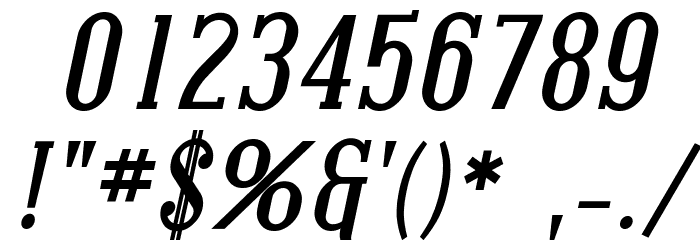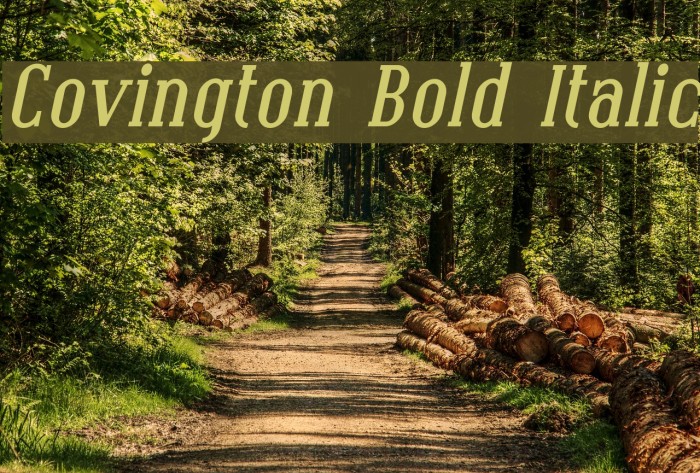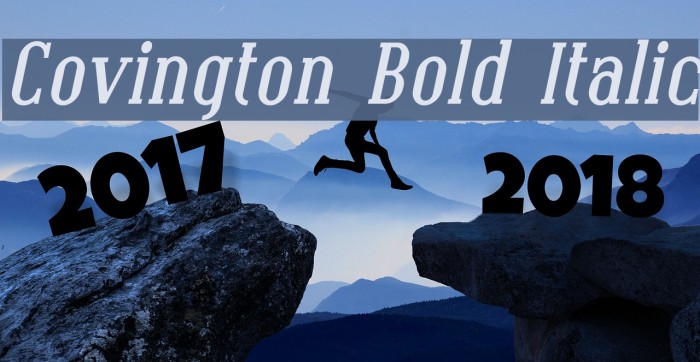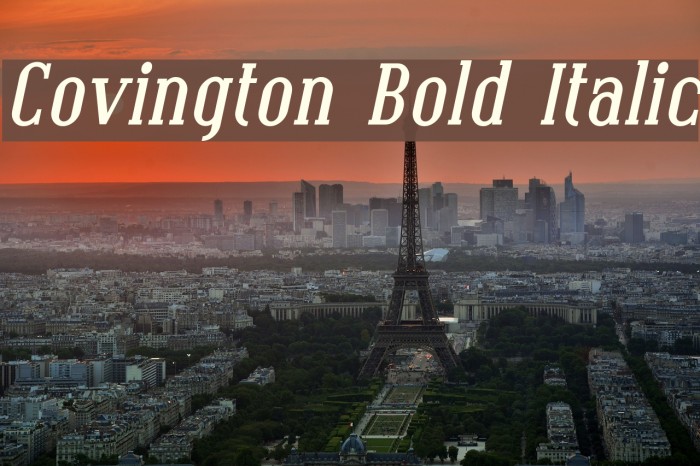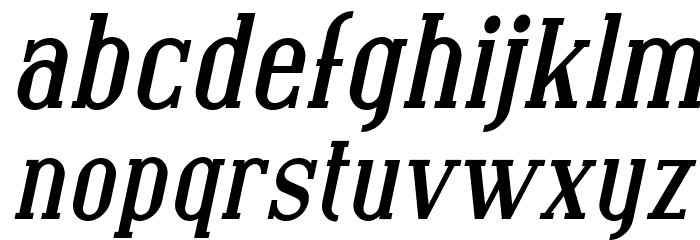
Covington Bold Italic Font
Covington Bold Italic Description
This font features a bold and italicized style, characterized by its strong and dynamic presence. The letters are slightly slanted, giving a sense of motion and elegance. The strokes are thick and consistent, providing a robust appearance. The serifs are pronounced, adding a classic touch to the overall modern design. The numbers and special characters maintain the same bold and italicized characteristics, ensuring uniformity across all elements. This font is suitable for making a statement in any design project, combining traditional serif elements with a contemporary twist.
| Proposed Projects | Ideal for headlines, branding, posters, and editorial design where a strong and stylish impact is desired. |